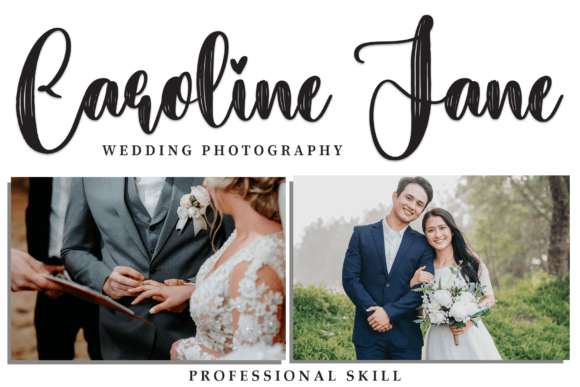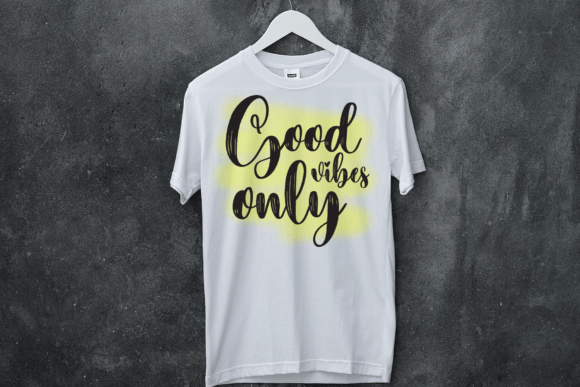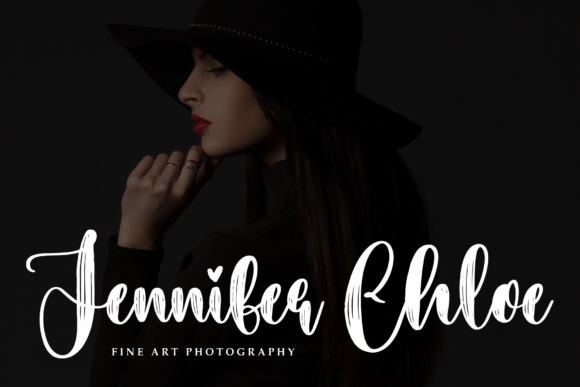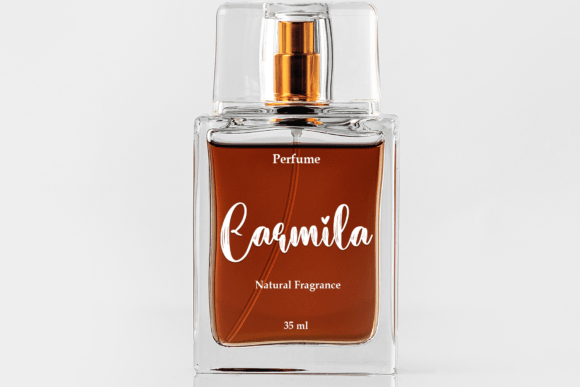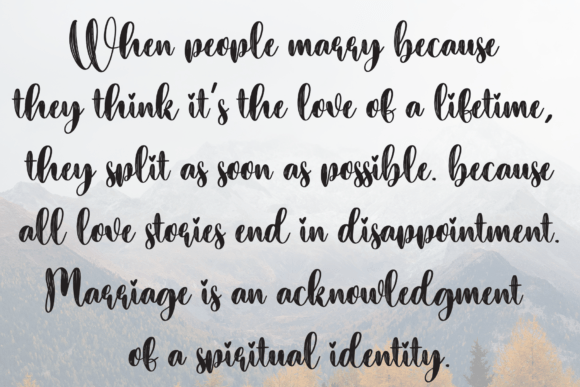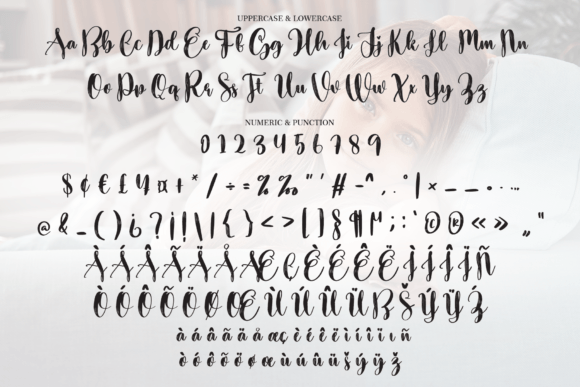
Introducing Glance Font: The Elegant Diamond of Handwritten Typography
Are you on the hunt for a font that exudes elegance and sophistication? Look no further than the Glance Font, a stunning handwritten typeface that is sure to capture your heart. Described as a flowing script with an elegant touch, this beautiful font is perfect for designers and crafters looking to add a touch of luxury to their projects.
The Distinctive Style of Glance Font
What sets Glance Font apart from other handwritten fonts is its incredibly distinct and timeless style. The Diamond font, in particular, boasts a unique flair that is both captivating and memorable. Its elegant touch is evident in every curve and line, making it an excellent choice for projects that require a high level of sophistication.
Use Glance Font to Create Spectacular Designs
With Glance Font, the creative possibilities are endless. Whether you’re working on a branding project, a wedding invitation, or a digital marketing campaign, this font is sure to elevate your design to the next level. Its flowing script and elegant touch make it perfect for:
- Digital marketing campaigns and social media graphics
- Art and craft projects
Why Choose Glance Font?
So, what makes Glance Font a top choice among designers and crafters? Here are just a few reasons why:
- Unique and distinctive style: Glance Font’s elegant touch and flowing script make it stand out from other handwritten fonts.
- Timeless appeal: This font’s classic style ensures that it will remain relevant for years to come, making it a great investment for designers and crafters.
- Versatility: Glance Font can be used for a wide range of projects, from digital marketing campaigns to art and craft projects.
- Ease of use: This font is easy to read and works well in both large and small sizes, making it perfect for a variety of applications.
Tips for Using Glance Font
To get the most out of Glance Font, here are a few tips to keep in mind:
- Pair it with contrasting fonts: Glance Font’s elegant touch makes it perfect for pairing with bold, contrasting fonts to create visual interest.
- Experiment with colors: This font works well in a variety of colors, so don’t be afraid to experiment and find the perfect hue for your project.
- Use it sparingly: While Glance Font is beautiful, it can be overwhelming if overused. Use it sparingly to create emphasis and add elegance to your design.
In conclusion, Glance Font is a stunning handwritten typeface that is sure to capture your heart. Its elegant touch, flowing script, and timeless style make it perfect for designers and crafters looking to add a touch of luxury to their projects. With its versatility, ease of use, and unique style, Glance Font is a great addition to any design toolkit. So why wait? Fall in love with Glance Font and start creating spectacular designs today!